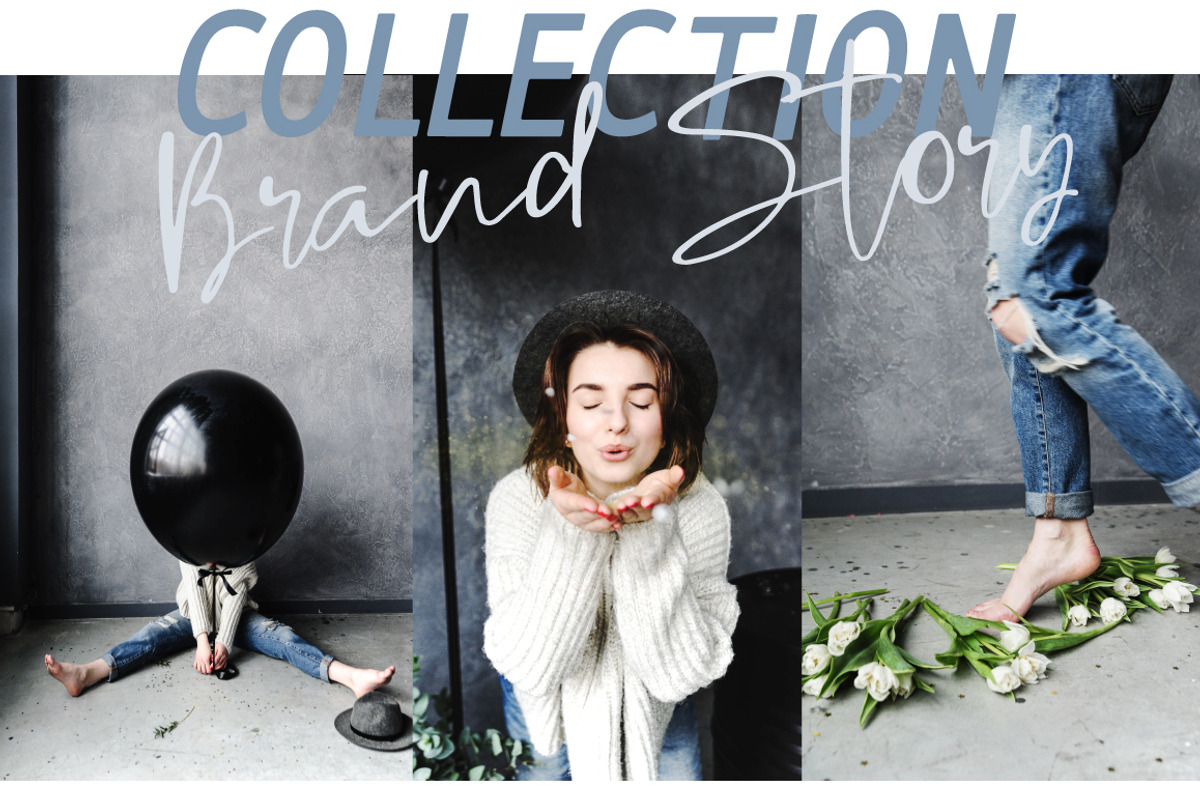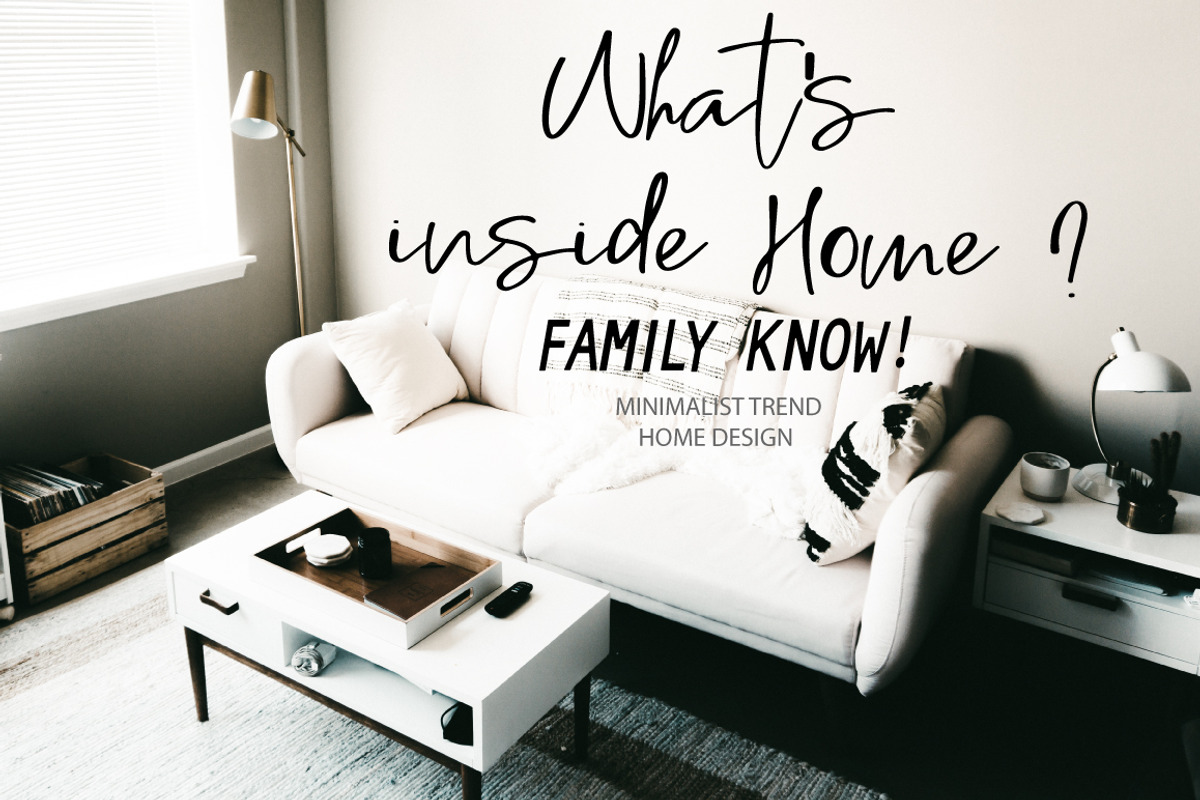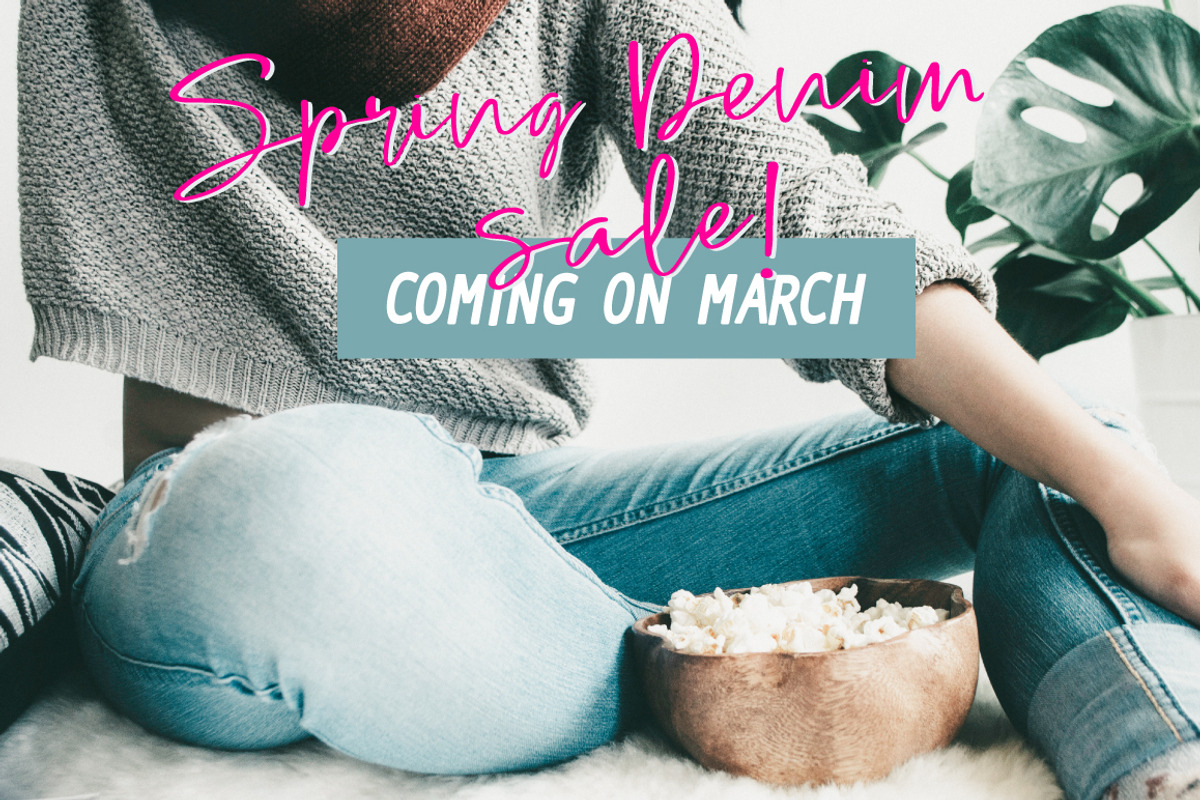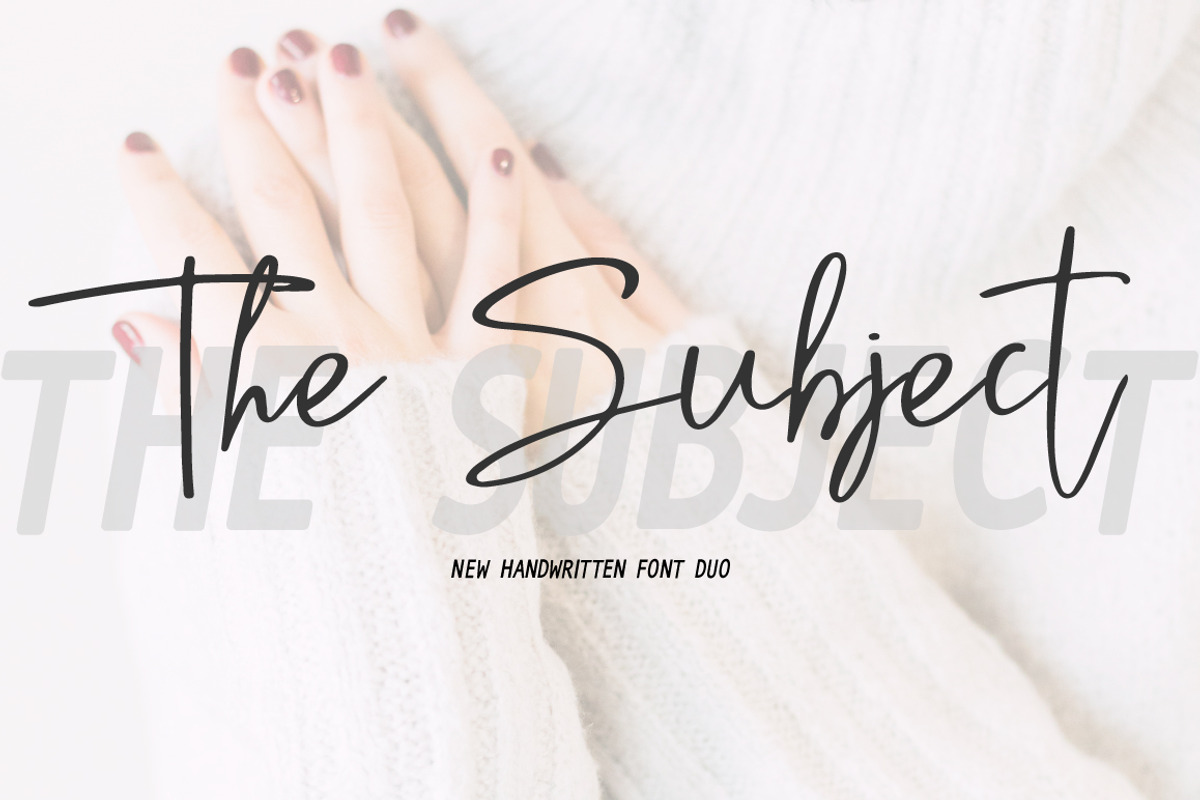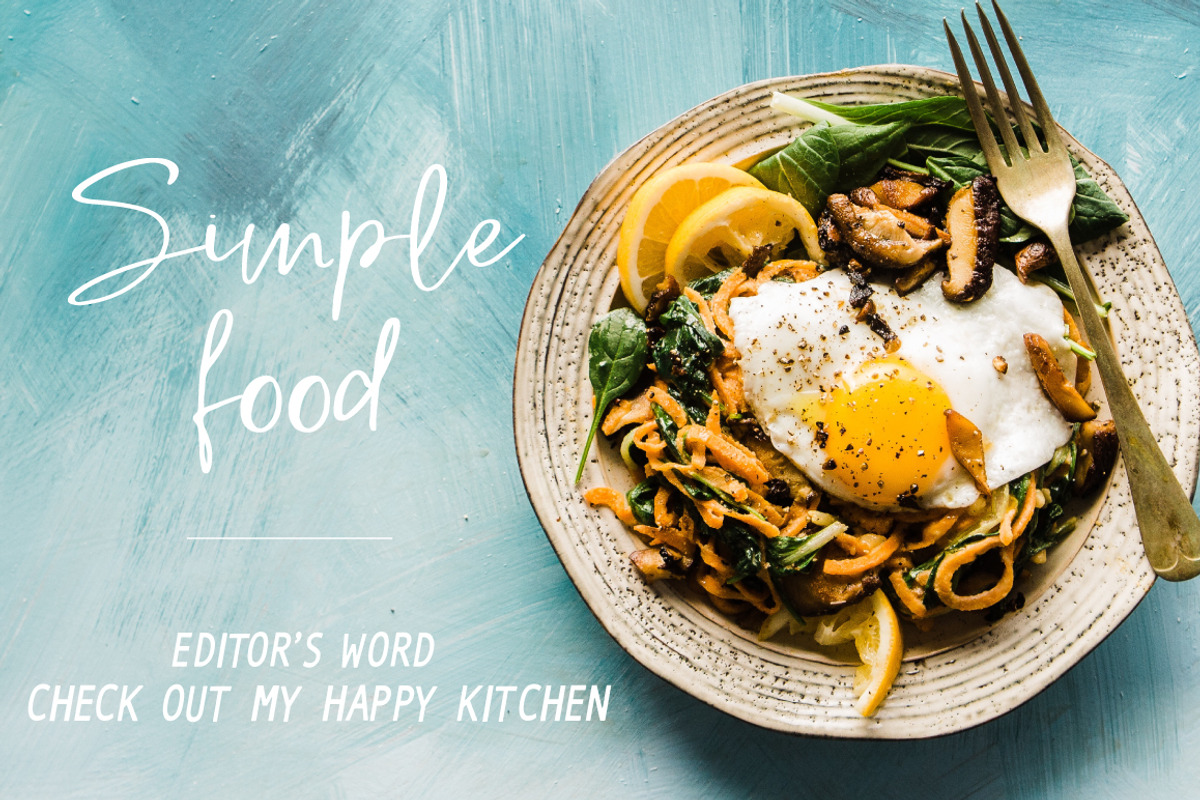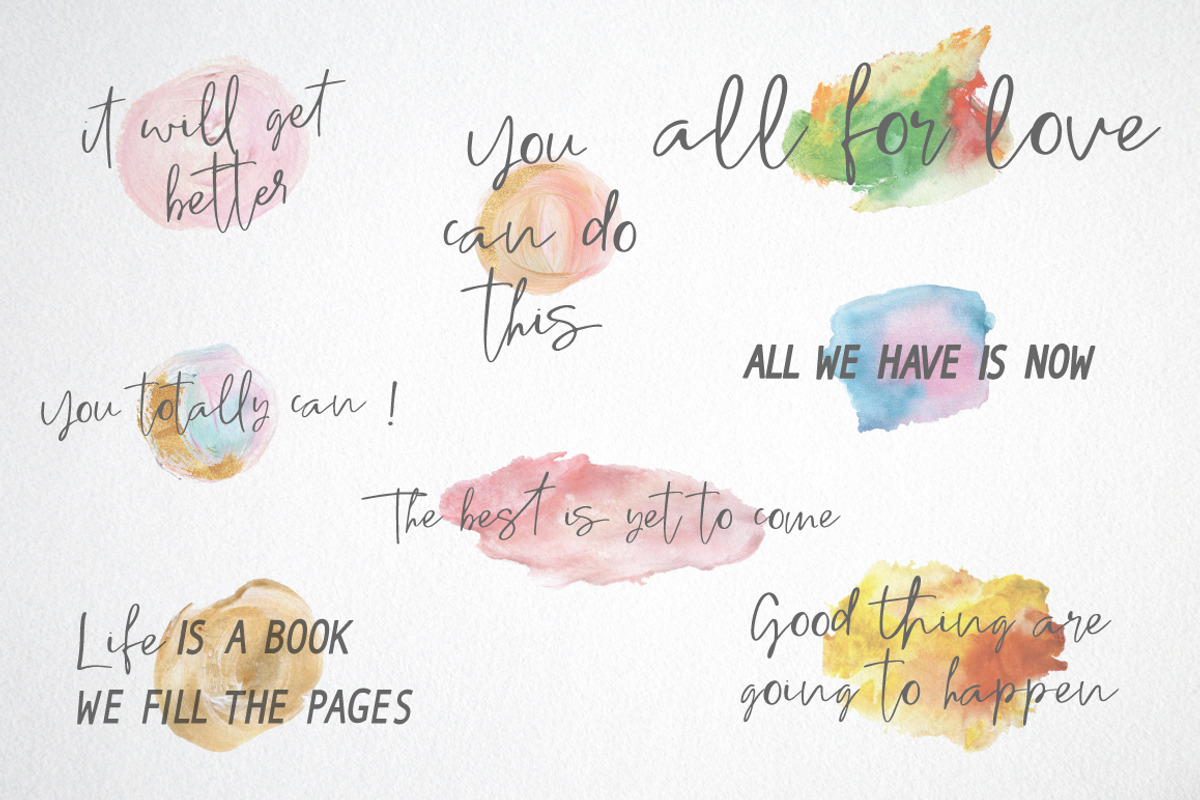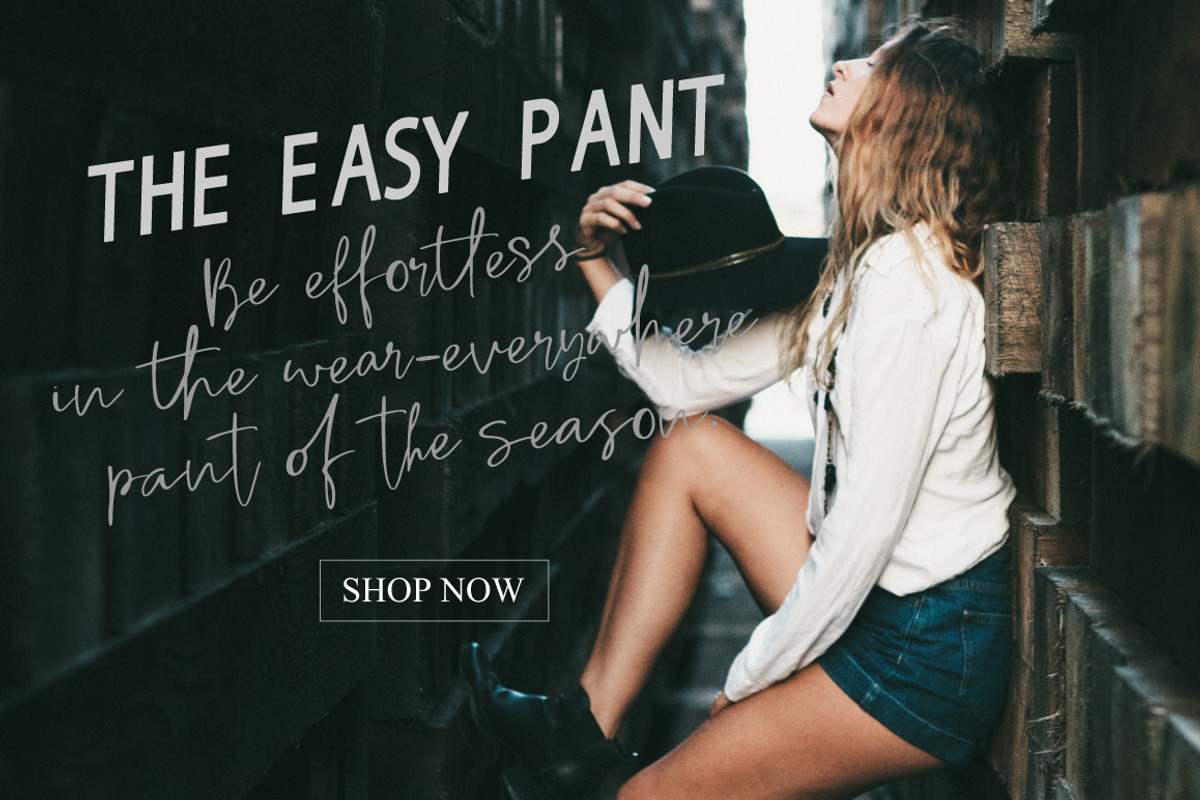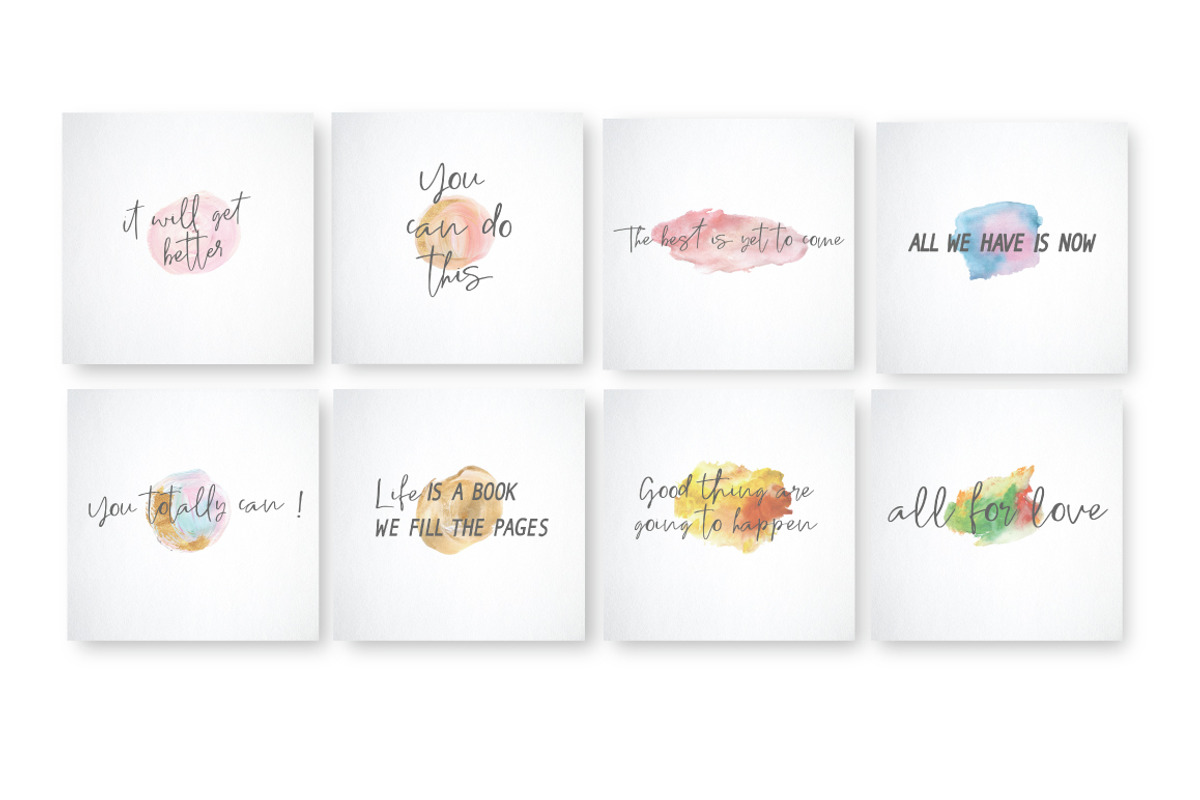
The Subject Font Duo + 8 Qoutes
The Subject Font Duo is a fashionable and contemporary pair of signature & sans fonts designed to perfectly compliment one another. This font is a perfect script designed for making your set of invitations, Brand, blog posts, and more completely beautiful
The script has alternate upper and lowercase character set
And you get 52 Ligatures